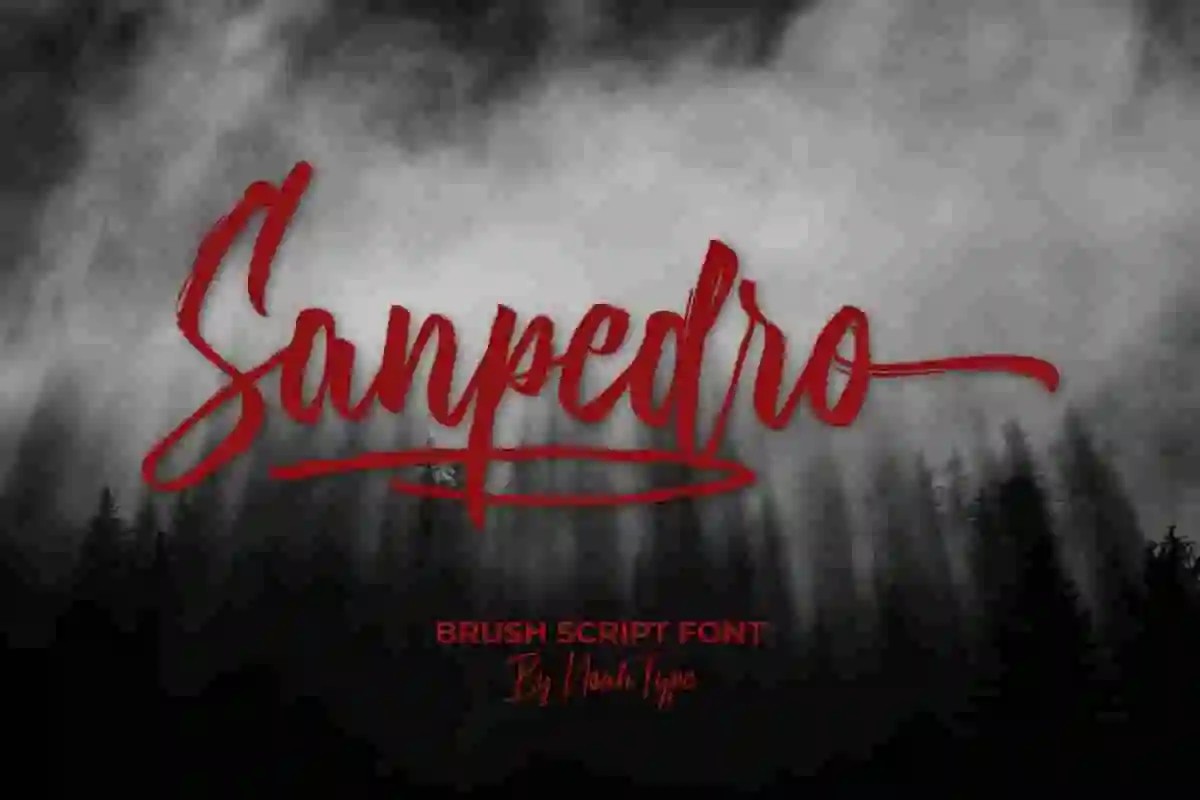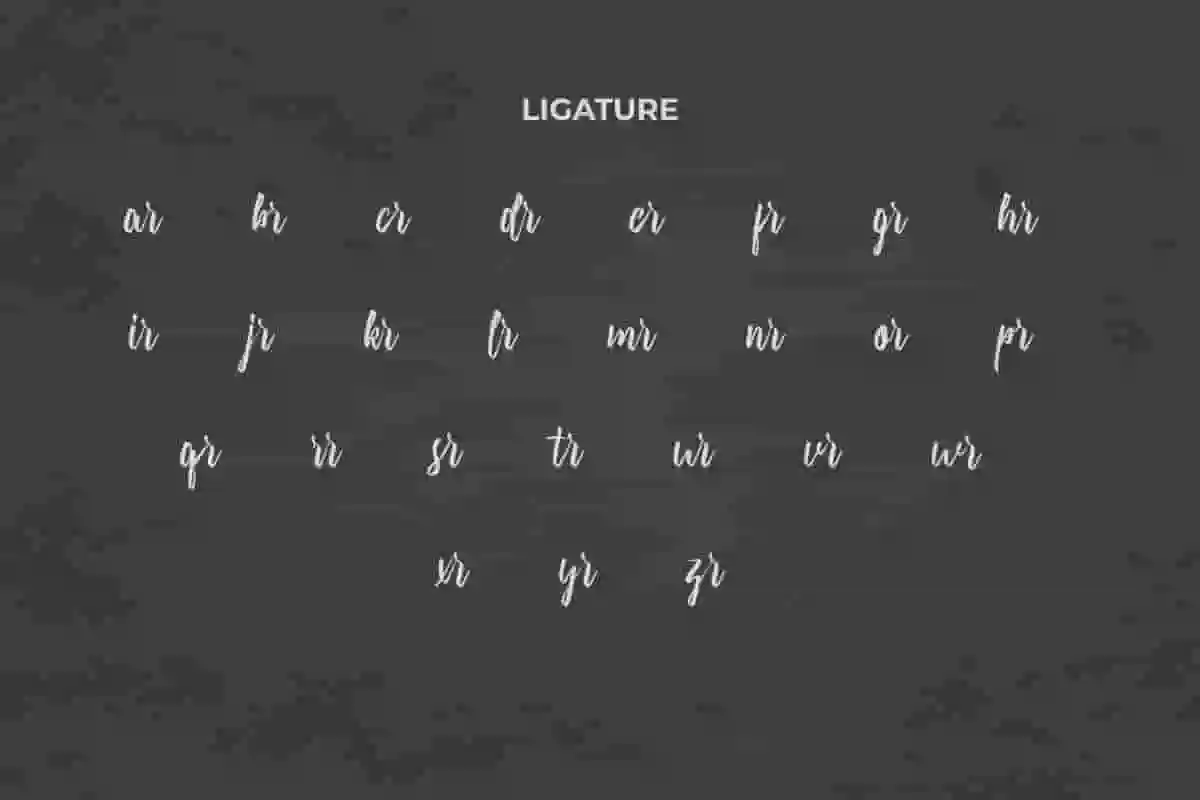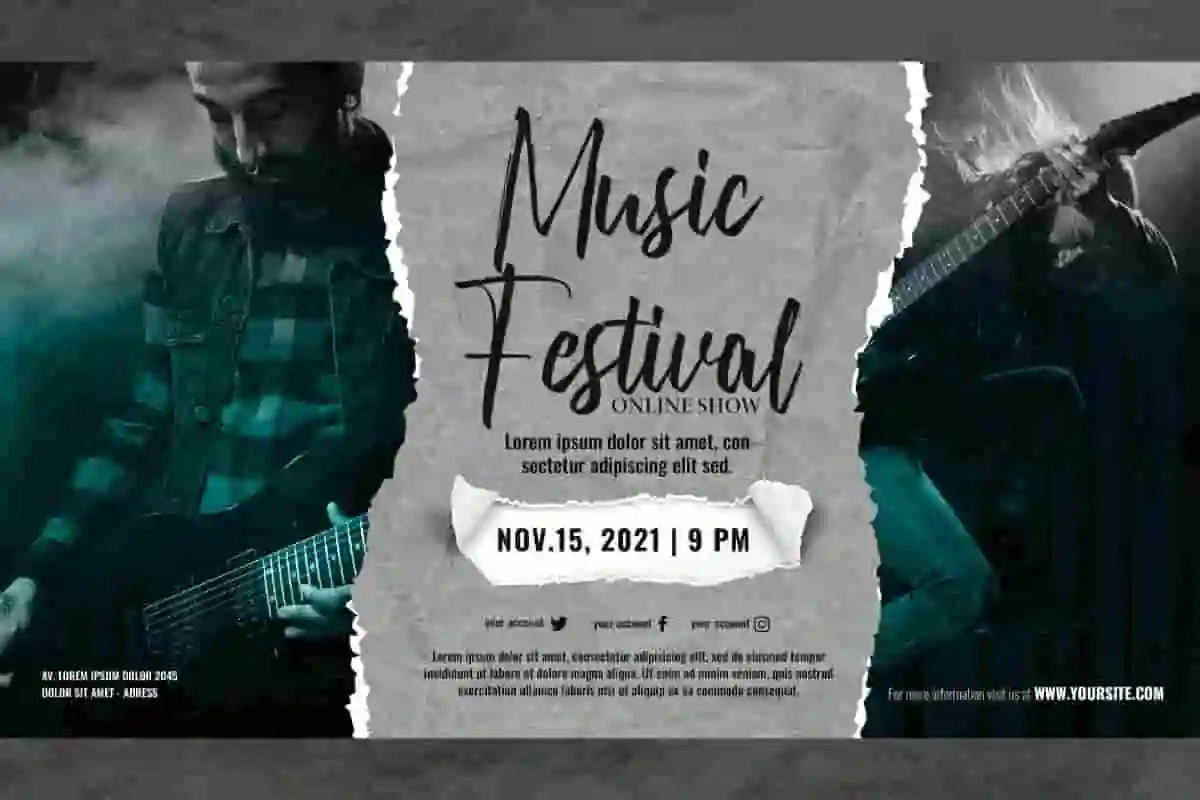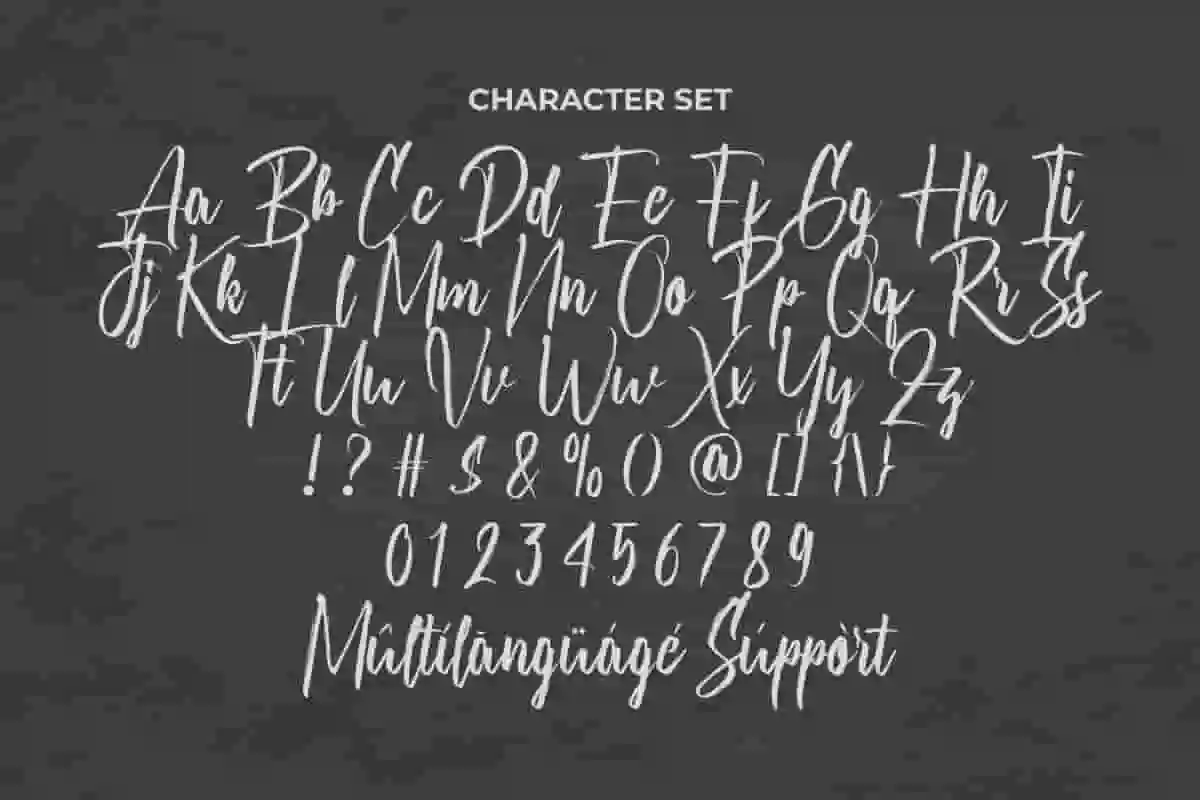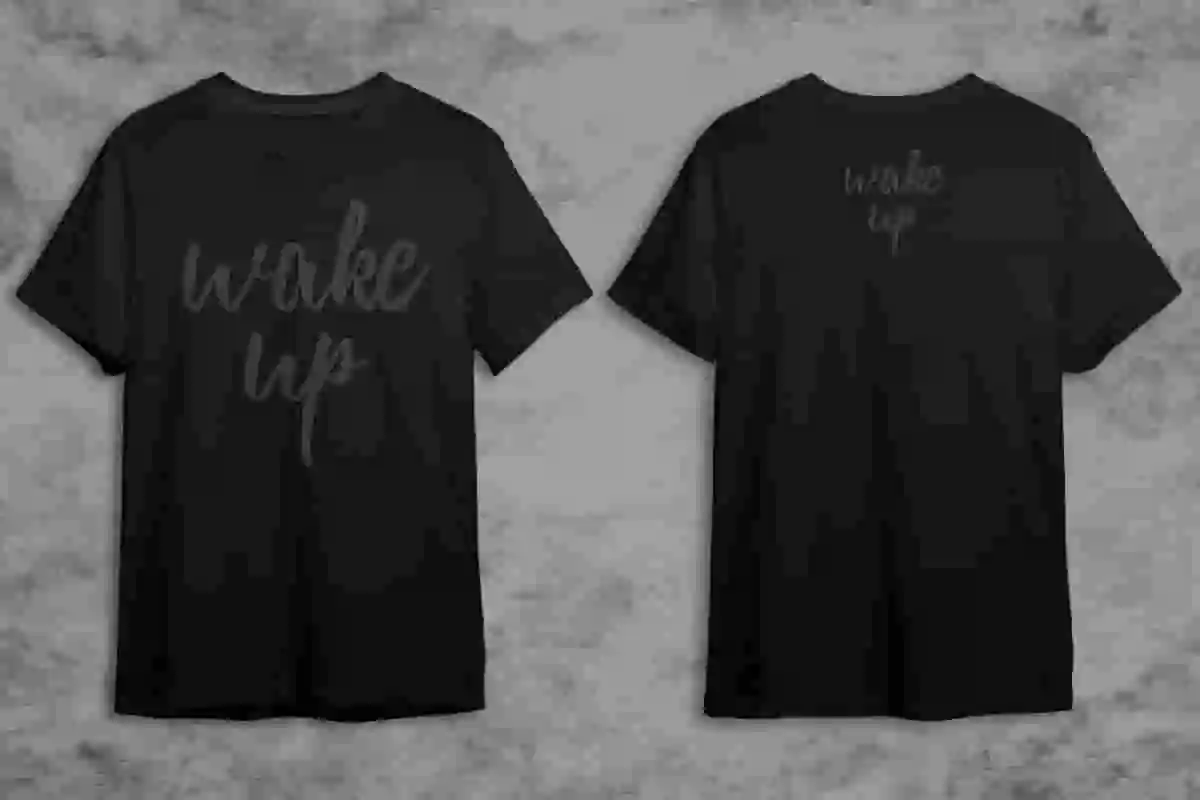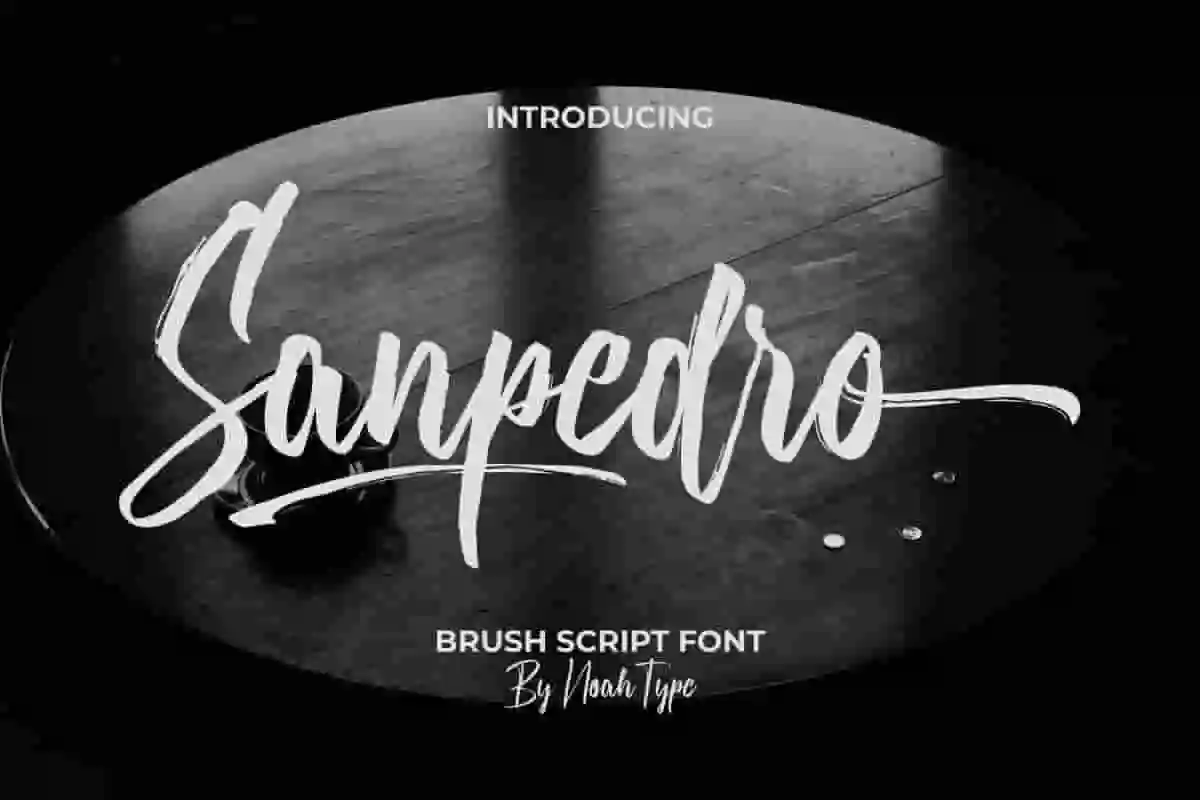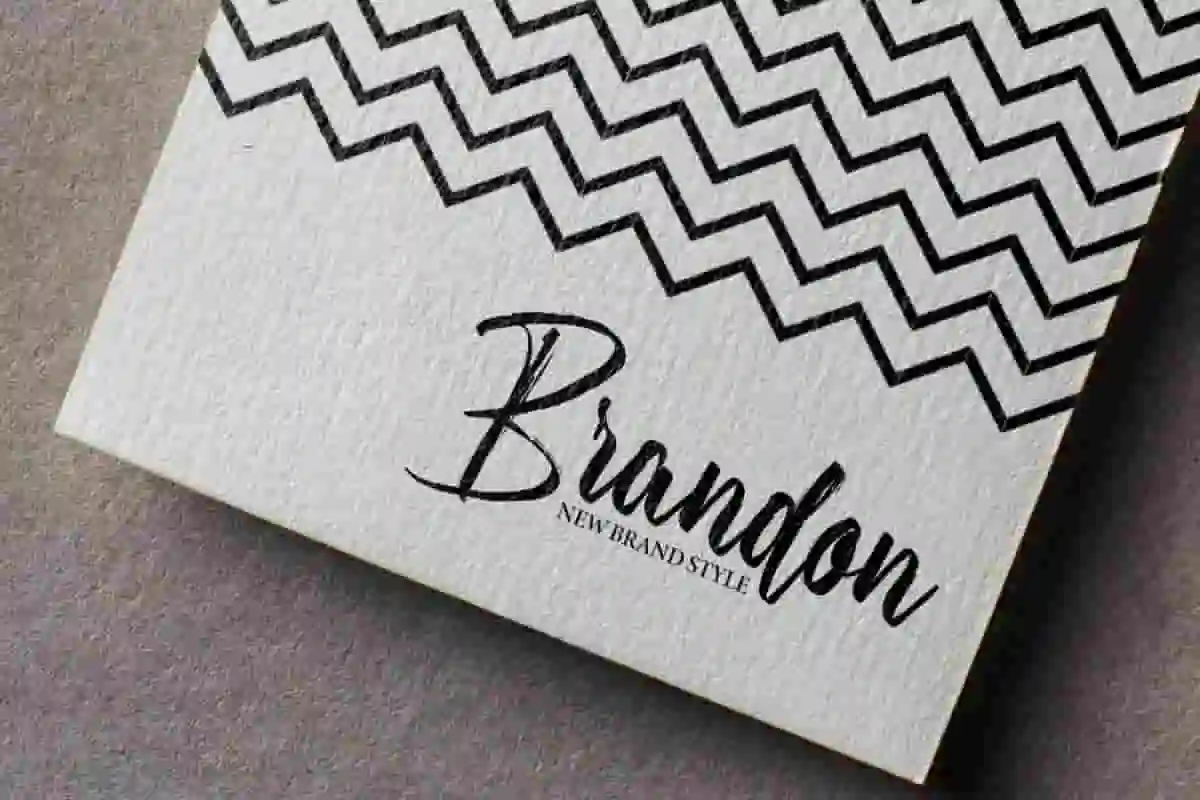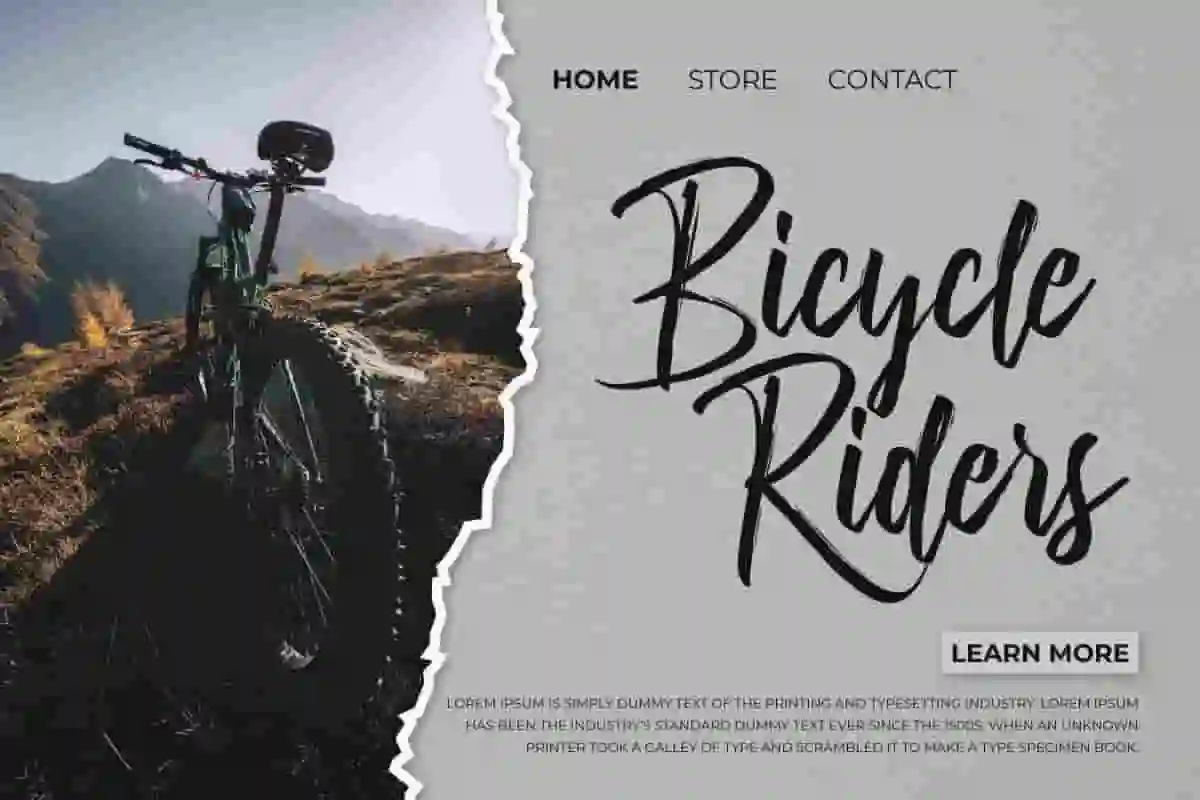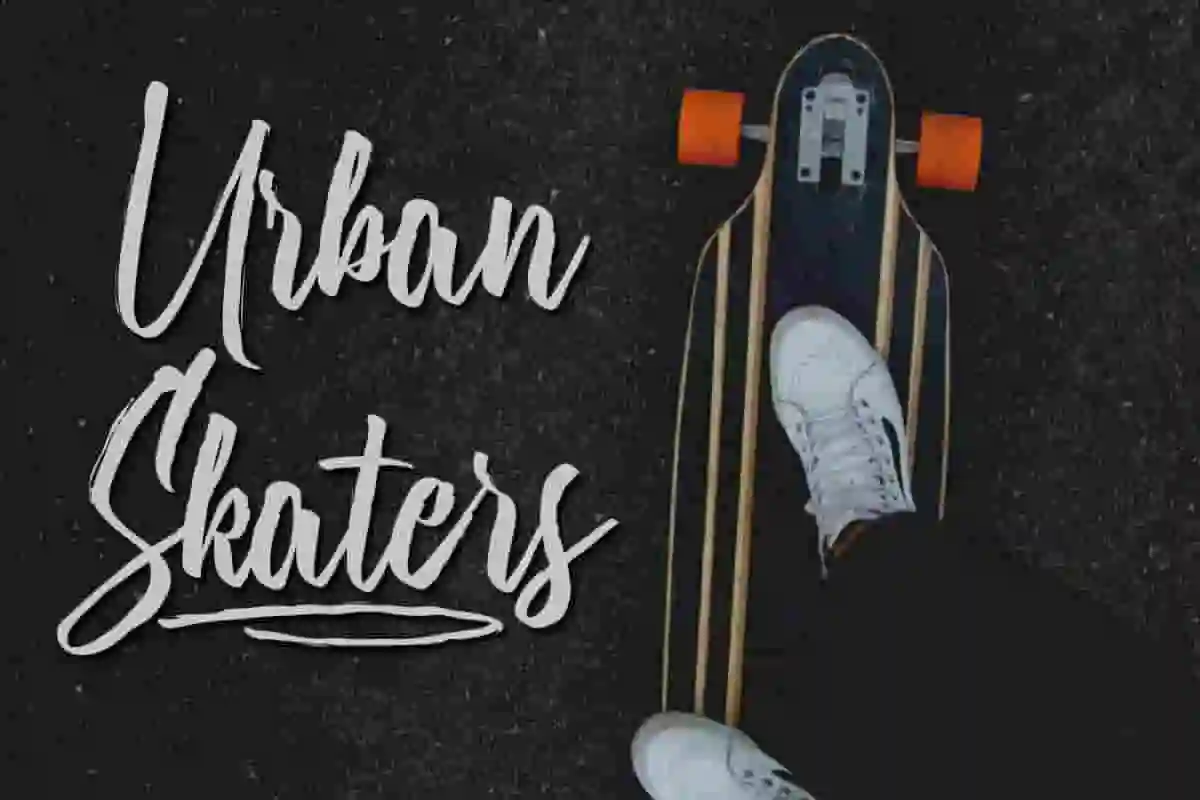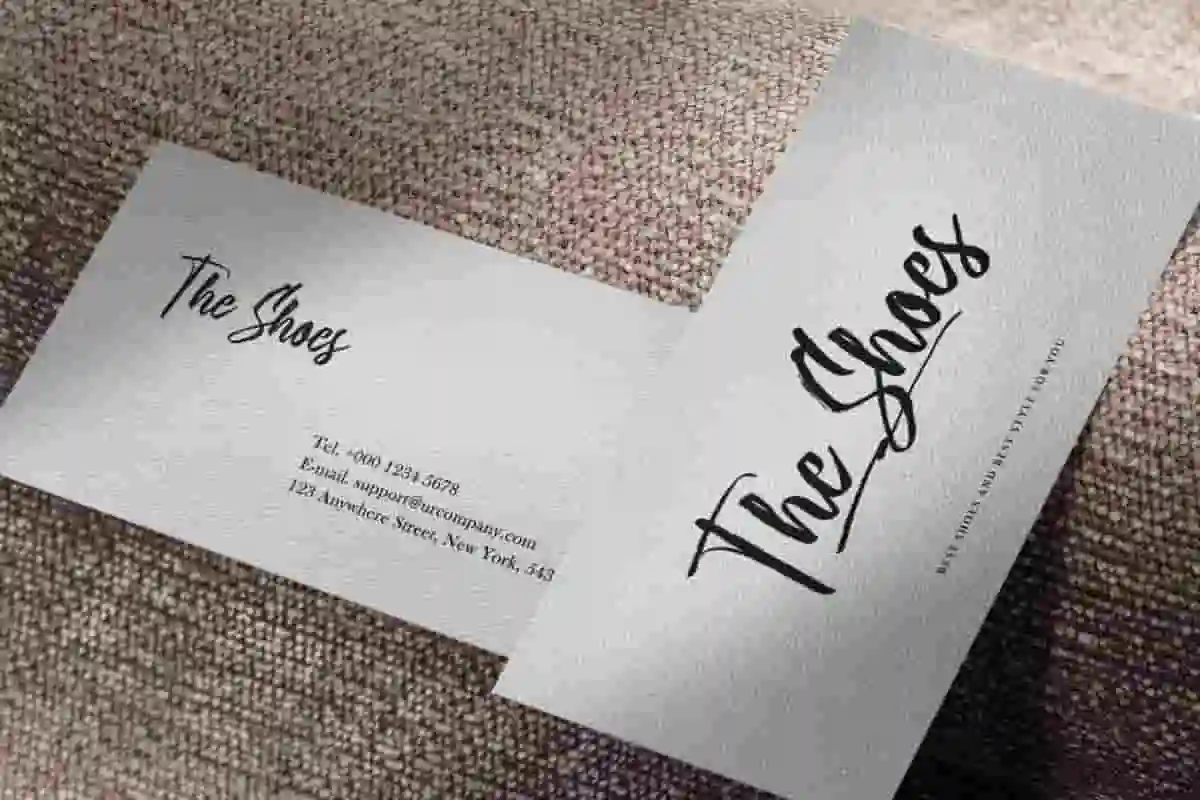
Sanpedro Font is a textured brush calligraphic font with modern character style. The font style can be used for many theme : horror, mysterious, dark, racing, games and many more. This font is crafted carefully in every its single scratch, created to look as close to a natural sketched so that it can create the perfect combination on each glyph. When we make this font, we really want to create a touch that is so flawless that it gives a natural impression on its use later. This awesome script is for anyone who are needing of elegance and stylish for their designs.
Sanpedro Font includes full set of Uppercase and Lowercase Basic Characters, Numerals and Punctuation. Also it contains ligatures and alternates characters to perfectly make natural calligraphy look that add more beautiful and aesthetic fonts to perfect your extraordinary project. Sanpedro Font will be awesome for wedding, engagement, branding, invitations, florist, hair stylish, makeup artist, event organizer, movie, music, festival, promotions, and than social media.